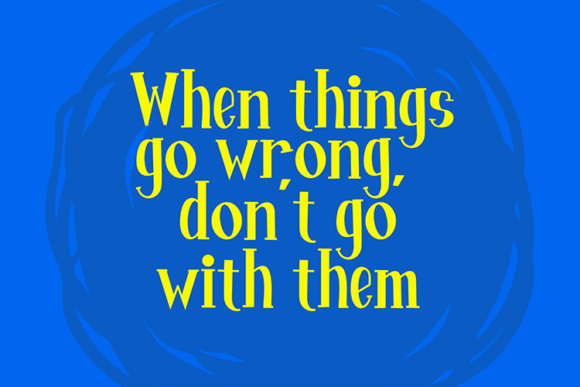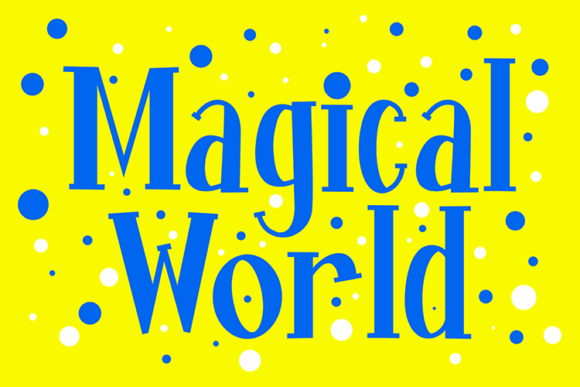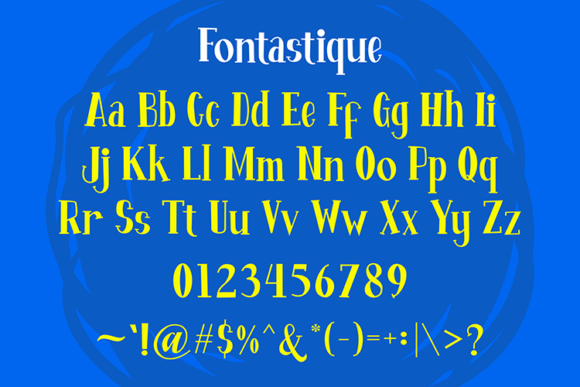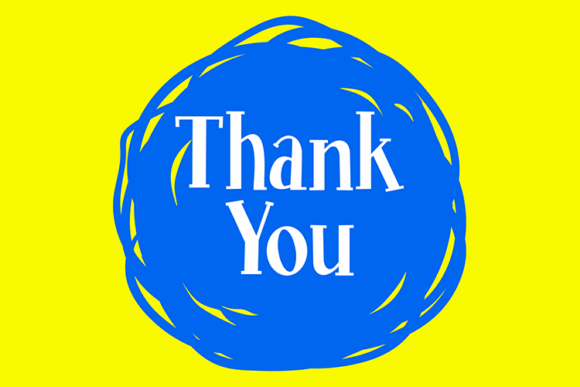
The Magical World of Fontastique: A Designer’s Dream Font
I’ll never forget the time I was working on a project for a client who wanted a custom t-shirt design with a quote that embodied the magic of their brand. I spent hours scrolling through font libraries, but nothing seemed quite right. That was until I stumbled upon Fontastique – a fancy and playful serif font that instantly transported me to a world of wonder. In this article, I’ll share my experience with Fontastique, its unique features, and how to make the most of it in your designs.
First Impressions: A Love Affair with Fontastique
As soon as I laid eyes on Fontastique, I knew I had found something special. Its whimsical and elegant design makes it perfect for a variety of projects, from quotes and t-shirt designs to flyers, YouTube channels, labels, and logos.
What I Love About Fontastique
- ✨ Unique Character: Fontastique has a distinct personality that sets it apart from other serif fonts.
- ✅ Highly Versatile: It can be used for both digital and print projects, making it a great addition to any design library.
- 💫 Magical Flair: The font’s playful and fancy design adds a touch of magic to any project.
While Fontastique is an amazing font, it’s not without its quirks. Here are a few things to keep in mind:
- 🤔 Legibility at Small Sizes: Fontastique can be a bit tricky to read at very small sizes, so make sure to test it thoroughly before finalizing your design.
- ⚠️ Overuse of Swashes: While Fontastique’s swashes are beautiful, overusing them can make your design look cluttered. Use them sparingly to add visual interest.
- Experiment with Fontastique’s OpenType features, such as swashes and stylistic alternates, to add visual interest to your design.
The Story Behind Fontastique
Fontastique was inspired by the magic of the world. Its creator wanted to capture the essence of fantasy and imagination in a font that would transport designers and readers to a world of wonder. The result is a font that’s both elegant and playful, perfect for designs that require a touch of magic.
Q: What is Fontastique?
Fontastique is a fancy and playful serif font inspired by the magic of the world. It’s perfect for designs that require a touch of elegance and whimsy.
Q: What can I use Fontastique for?
Fontastique is highly versatile and can be used for a variety of projects, including quotes, t-shirt designs, flyers, YouTube channels, labels, logos, and more.
Q: Is Fontastique easy to read?
Fontastique is generally easy to read, but it can be a bit tricky at very small sizes. Make sure to test it thoroughly before finalizing your design.